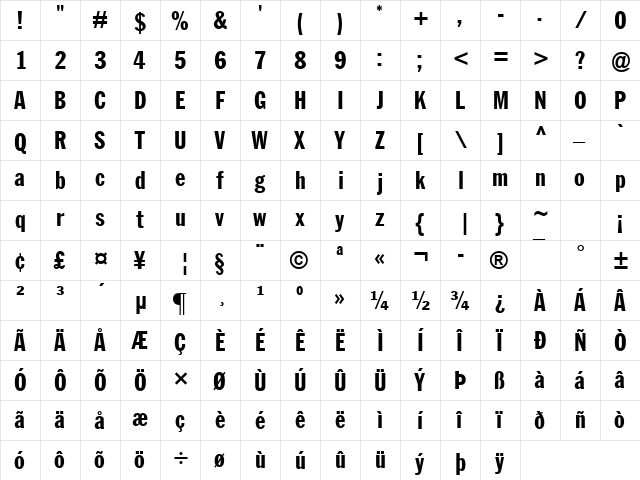
Franklin Goth Ext Condensed Regular
Design Context for Franklin Goth Ext Condensed Typeface
Franklin Goth Ext Condensed takes a measured approach to typography — its balanced proportions and neutral character make it a reliable workhorse for both digital and print work. Its narrow stance lets it pack a punch even in space-constrained designs.